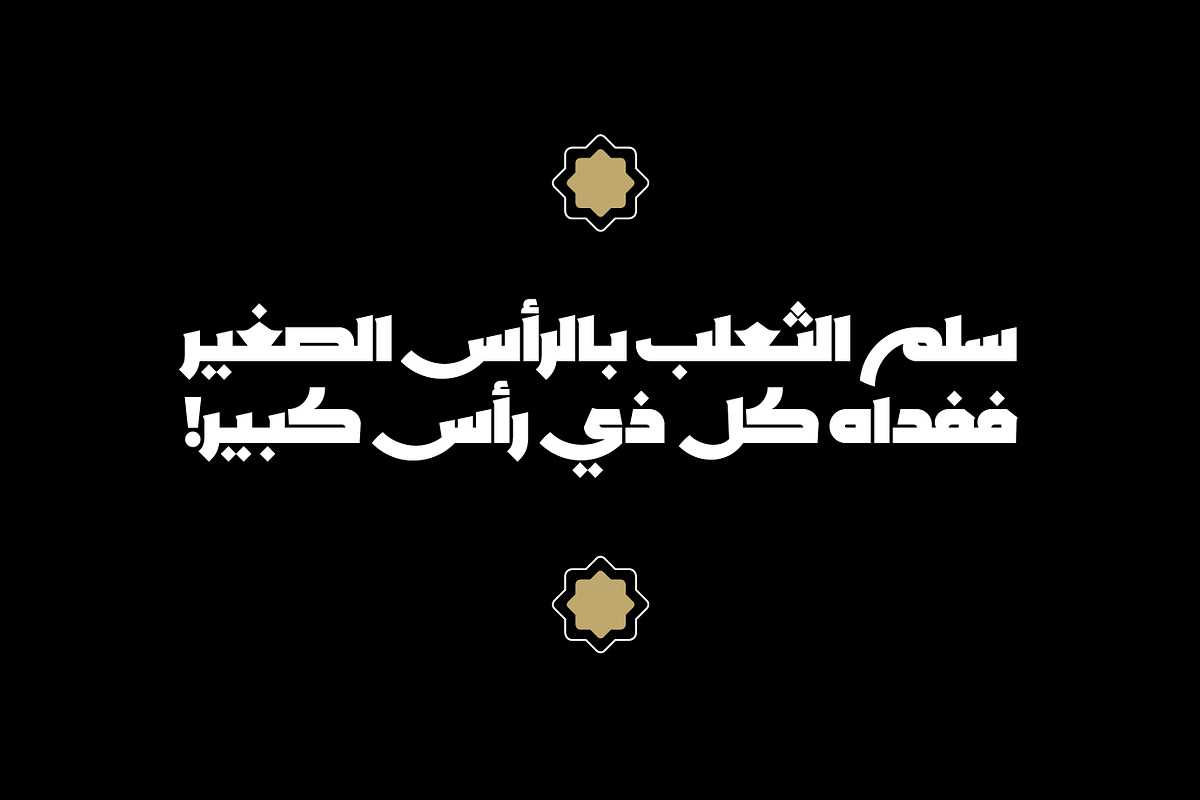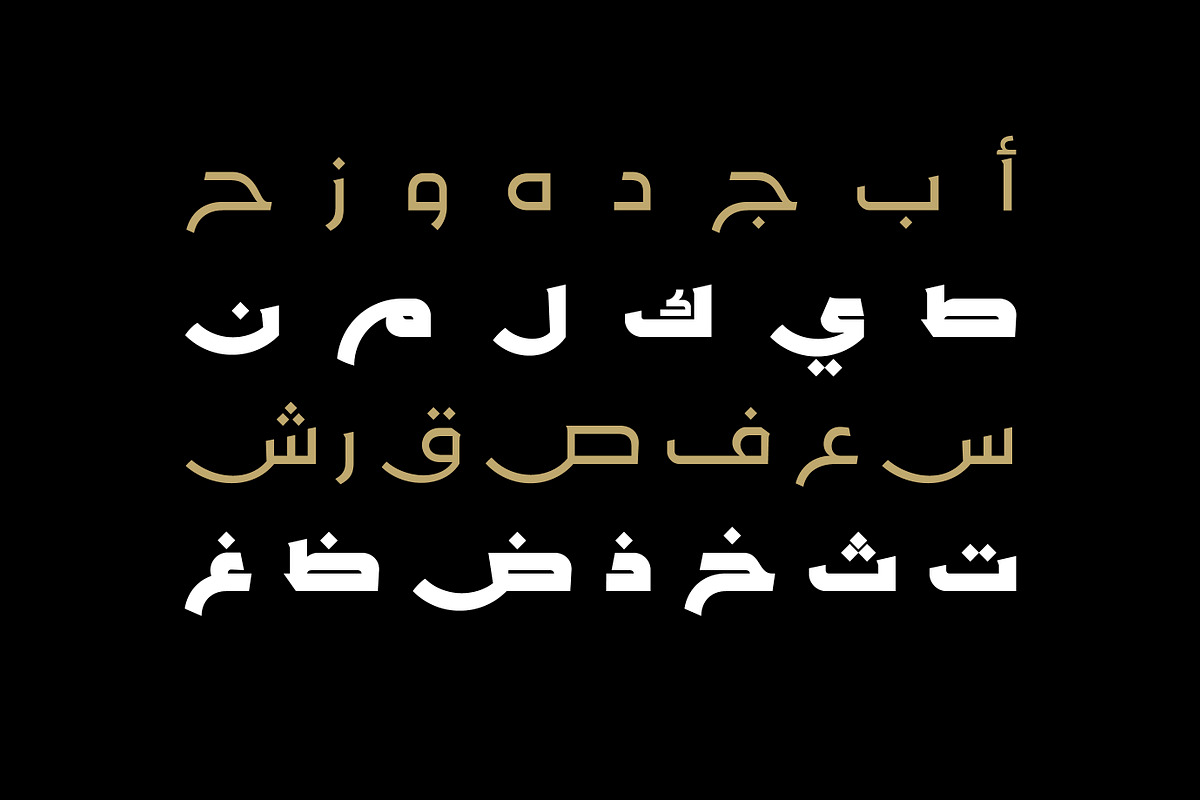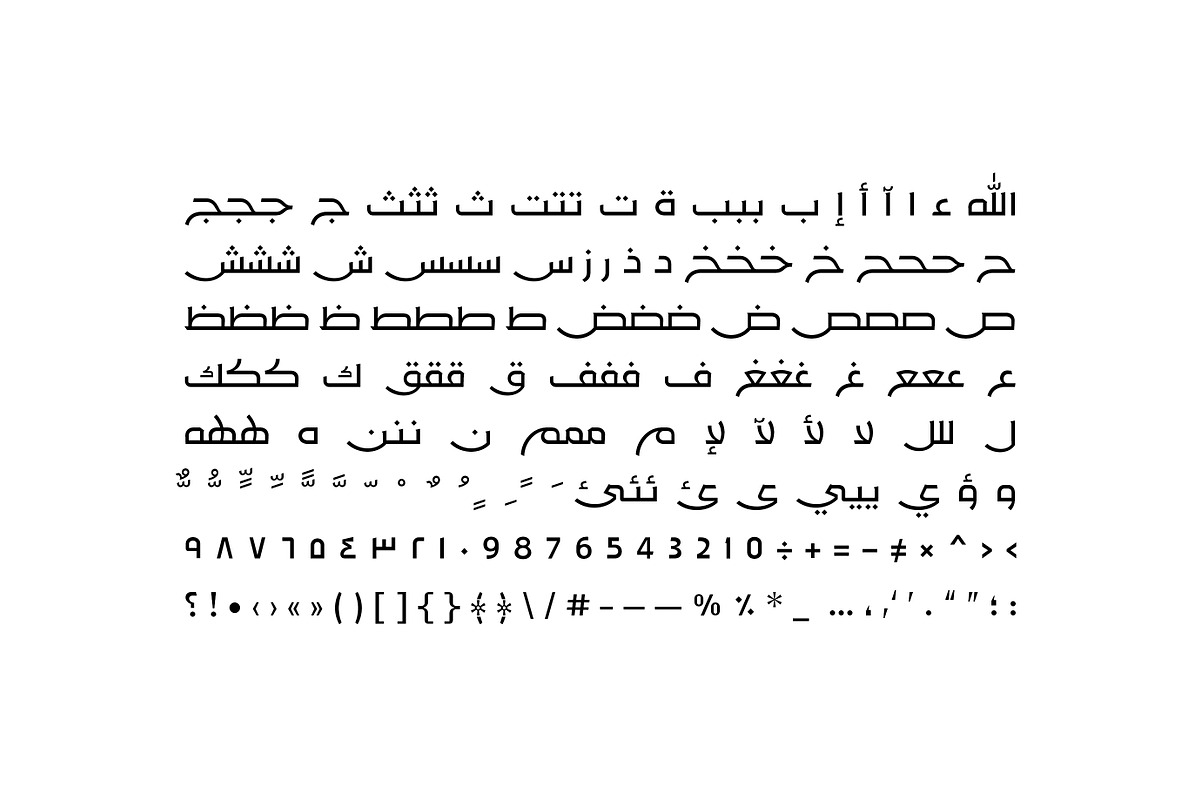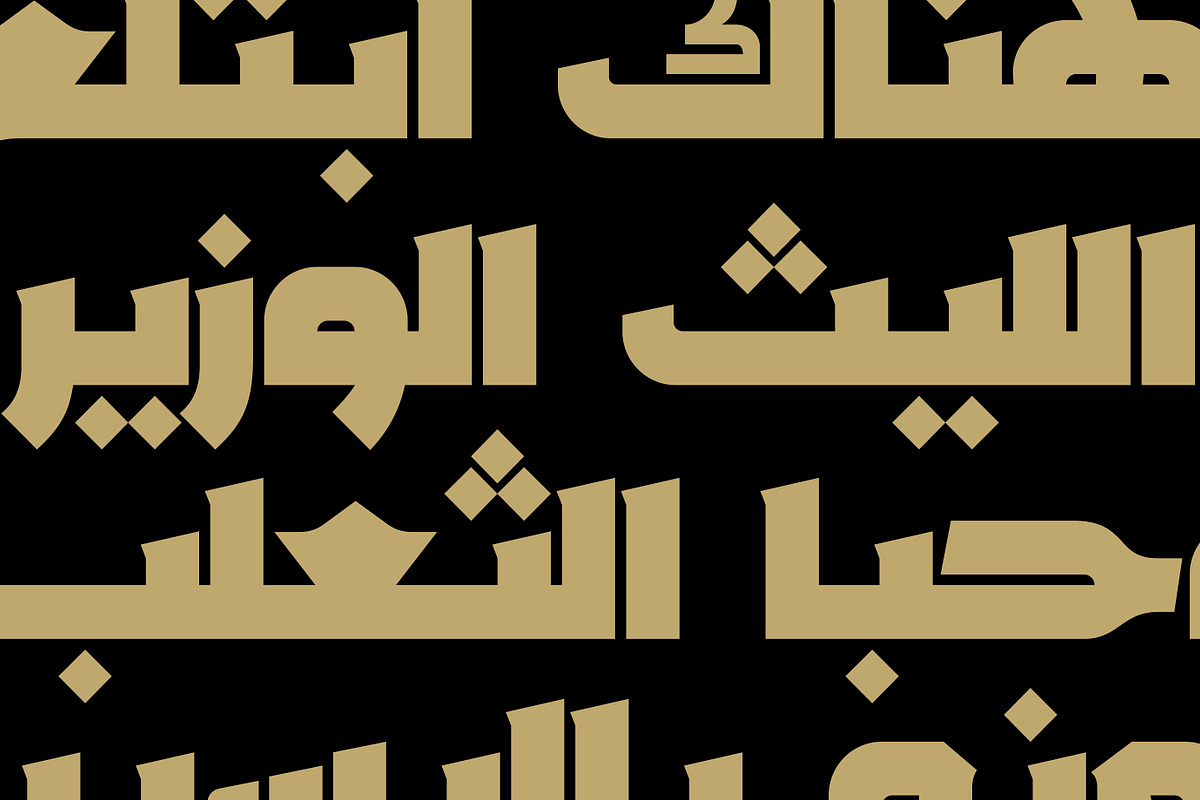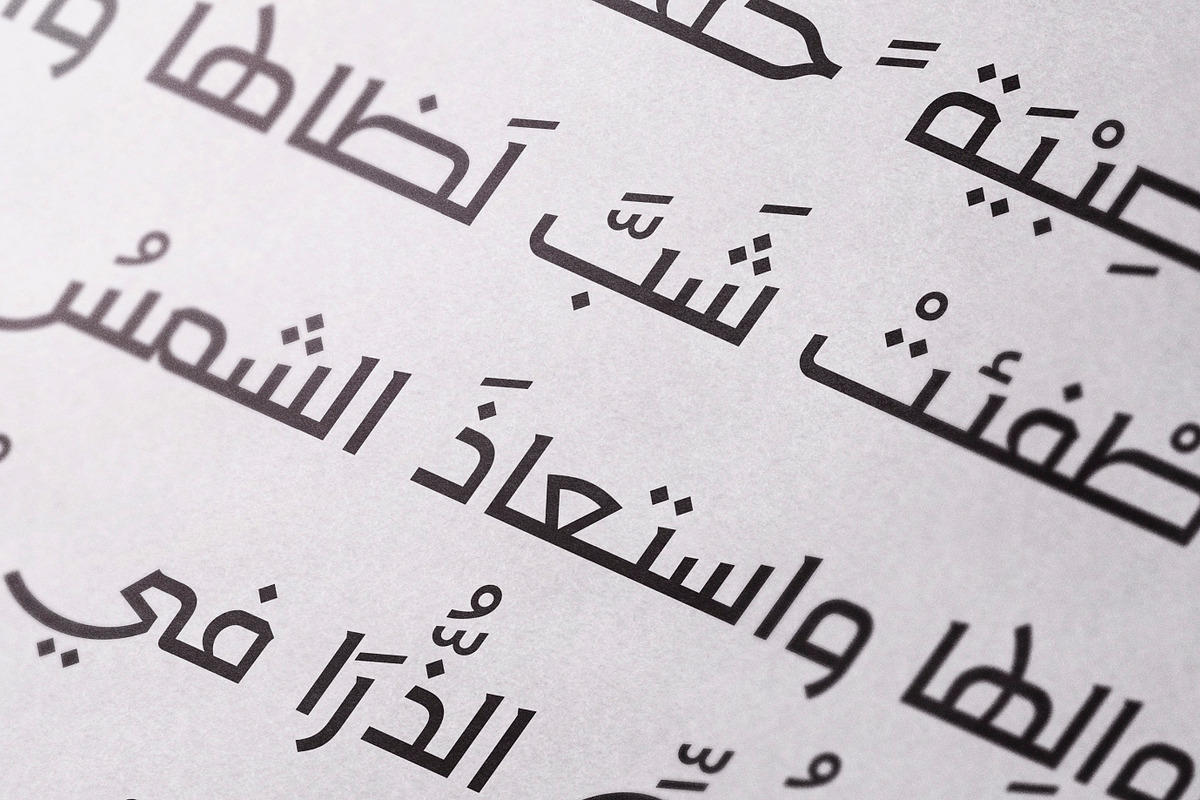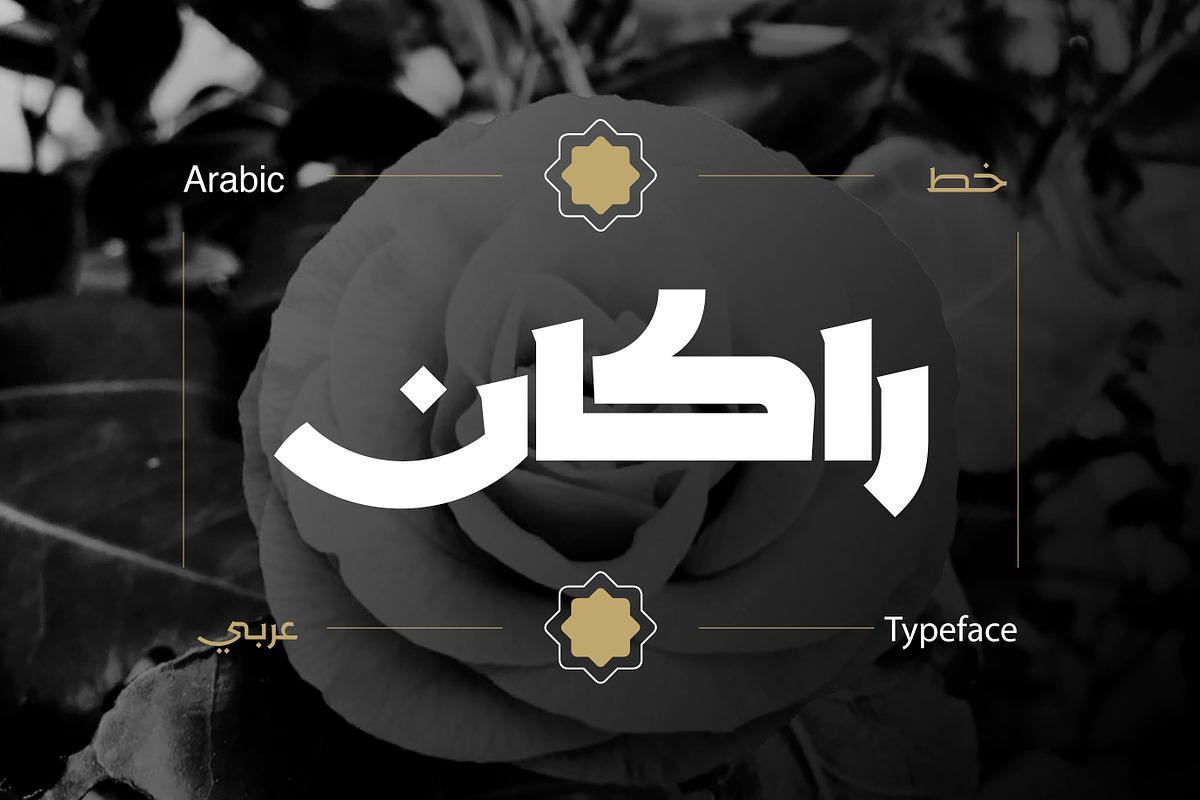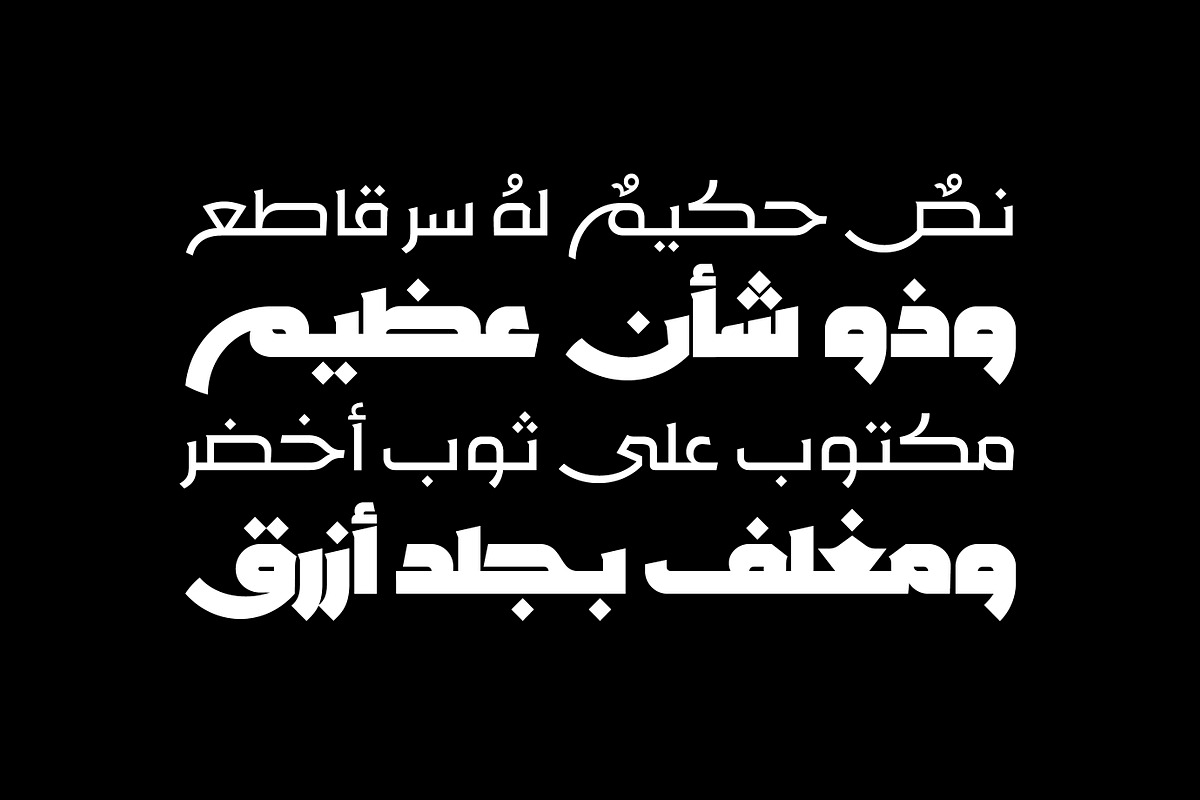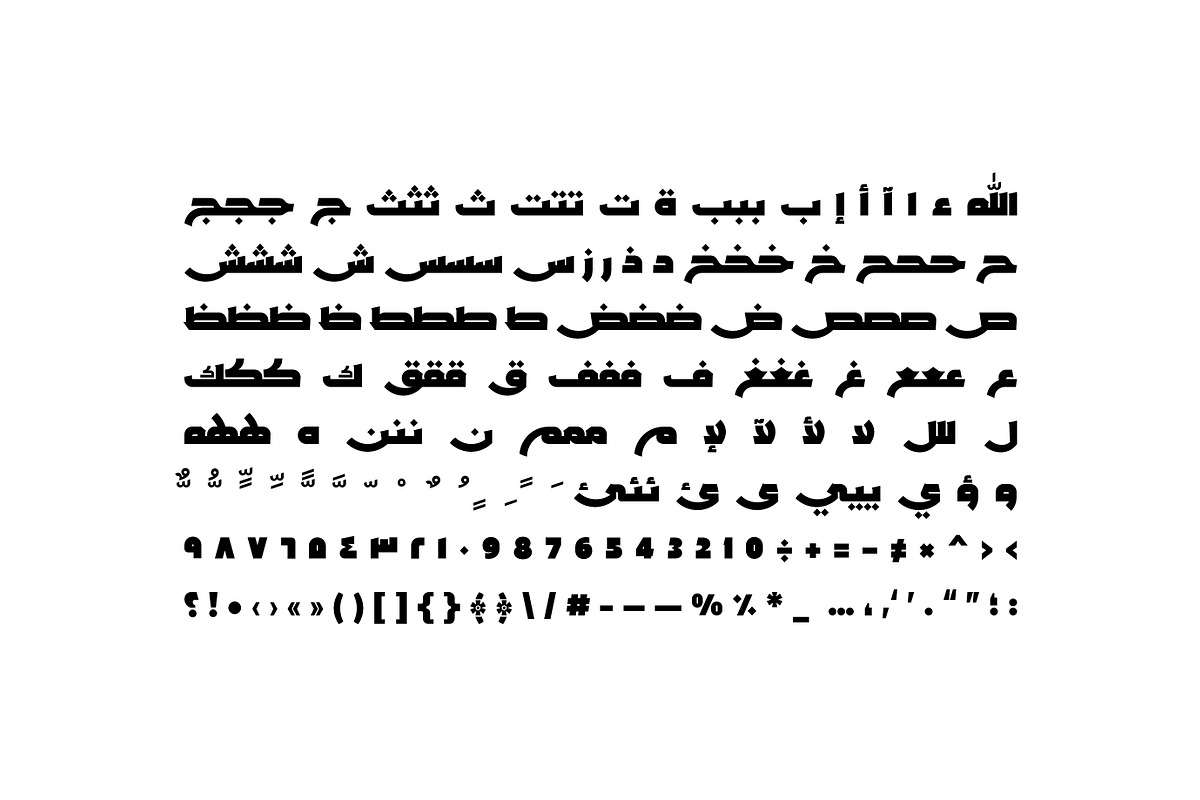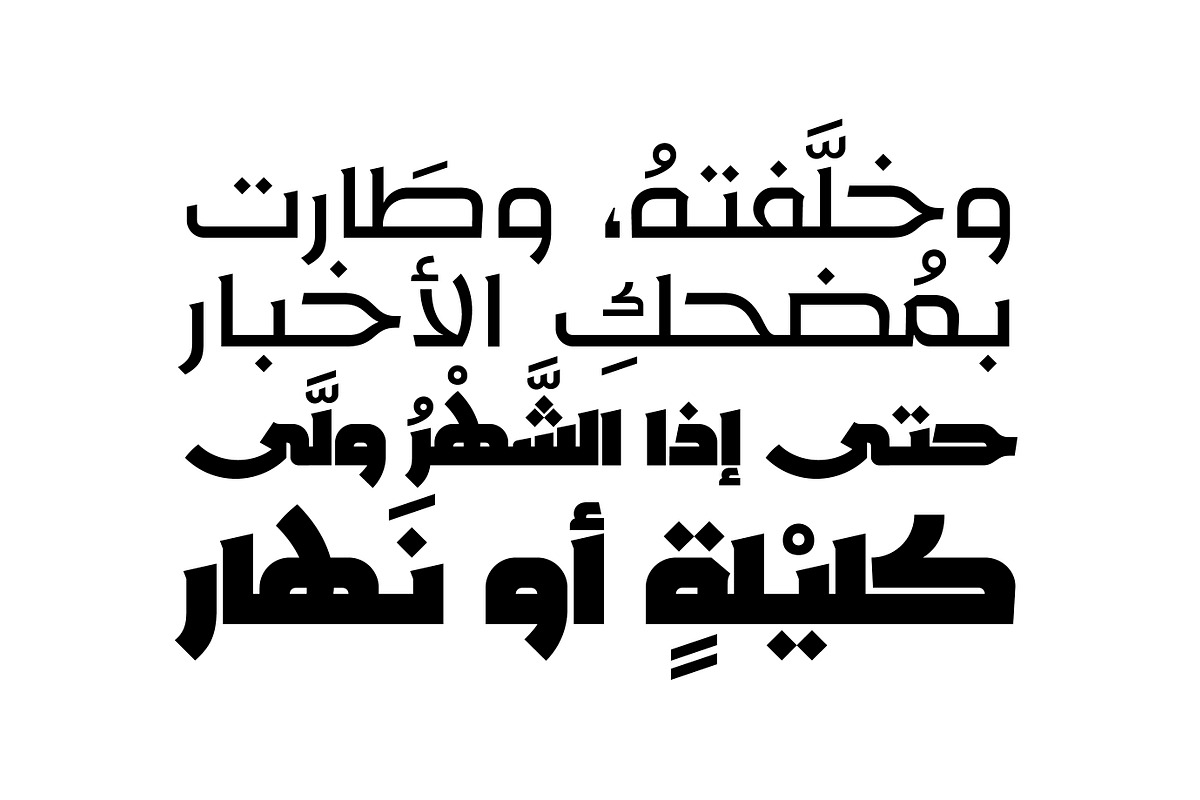
Rakan - Arabic Typeface
Rakan, which is the Arabic word for ‘sedate’, is an Arabic display font with contemporary letterform design that is inspired by the Kufic script. Rakan is suitable for modern applications such as advertising, branding and publication design. The typeface includes two weights (Regular and Bold) and it supports Windows, Mac and mobile applications.